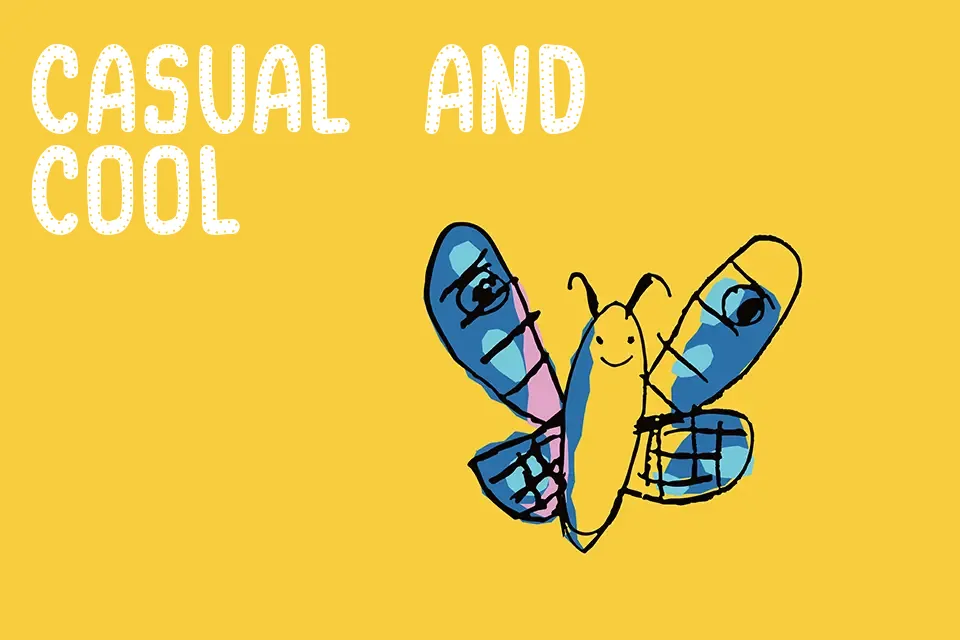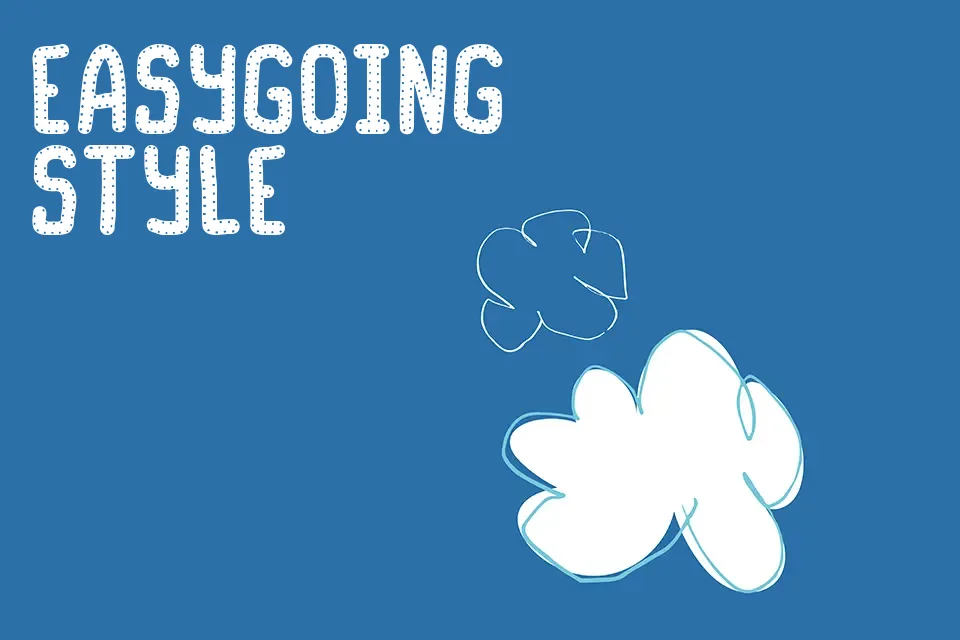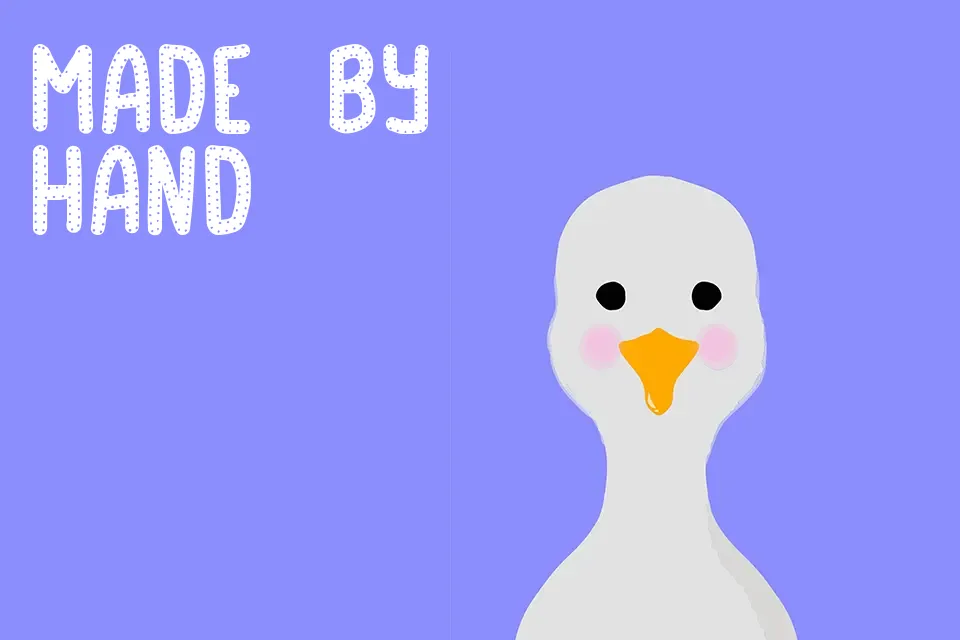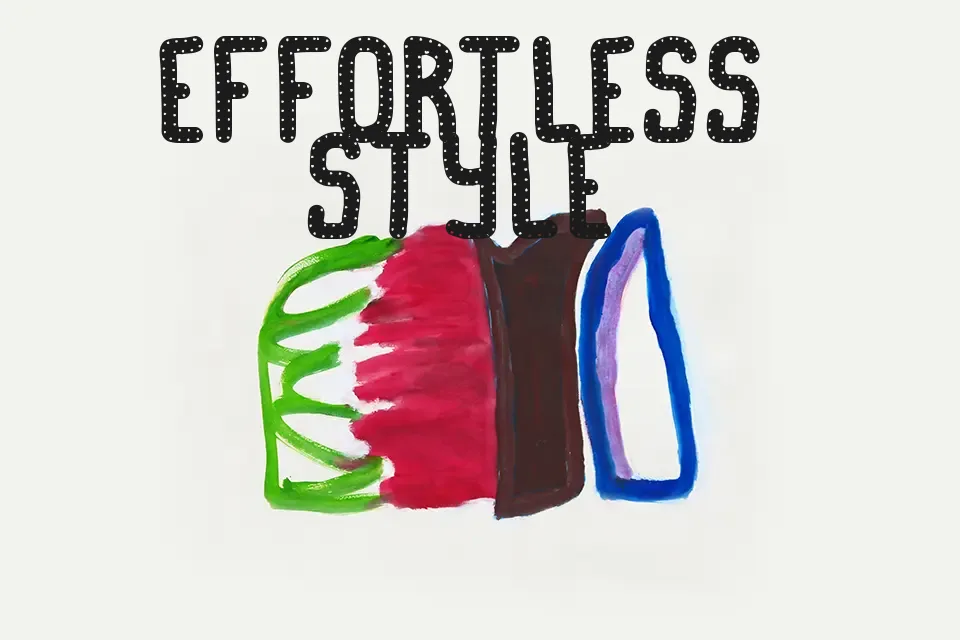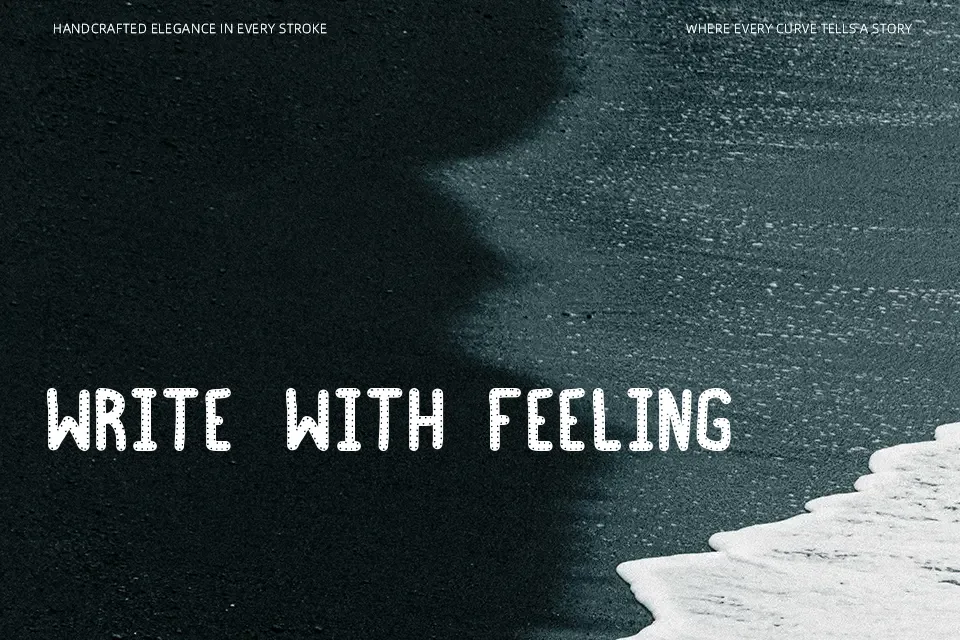
Baby Soft Stitches Font
Each letter in Baby Soft Stitches carries a visible stitch texture that mimics thread on fabric — the strokes are rounded, slightly uneven, and deliberately soft in weight. The overall impression sits somewhere between playful and handcrafted, leaning more decorative than functional. It works well at display sizes for baby shower invites, nursery room prints, or boutique children’s clothing tags, where the embroidery effect reads clearly. At small sizes, the stitch detailing becomes muddy and loses its visual point — this is a headline-only font, not one you’d run at 12pt in a body paragraph. If you need something in this lane but with more legibility range, fonts with cleaner outline construction handle multi-size use better.
Best For:- Baby shower invitation headers
– Nursery wall art and printed décor
– Children’s clothing brand tags and labels
– Kids’ party printables and event signage
Not Ideal For:- Body text or any small-size application
– Corporate or professional branding
– Digital UI where screen rendering softens detail
– Projects requiring multilingual or extended character support
Perfect for branding, invitation, and kids, with a cute and decorative style.